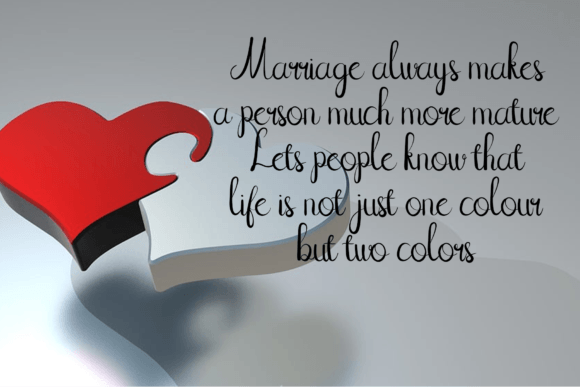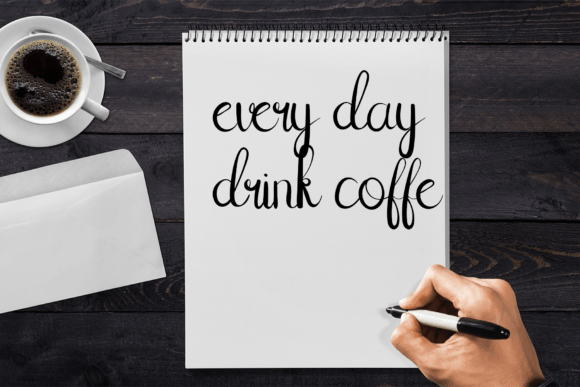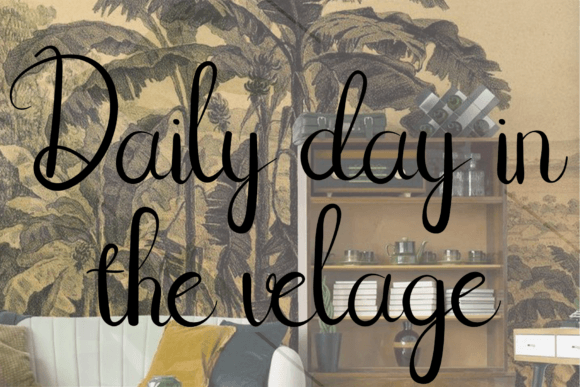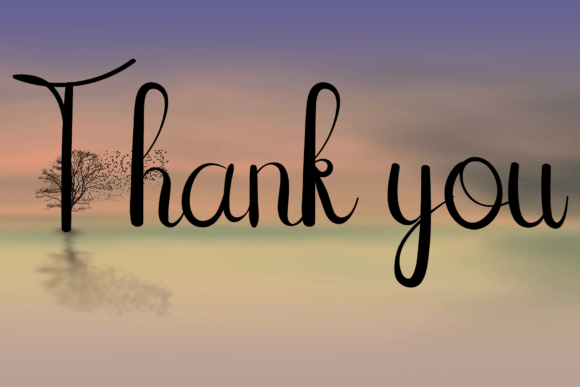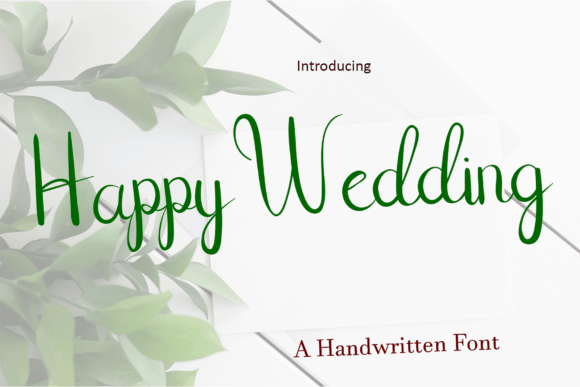
Introducing Happy Wedding: The Elegant and Flowing Handwritten Font
Are you looking for a font that exudes elegance, sophistication, and romance? Look no further than Happy Wedding, a beautiful handwritten font that is perfect for a variety of design projects. In this article, we’ll take a closer look at the features of Happy Wedding and explore how it can elevate your designs to the next level.
A Classy Calligraphic Influence
Happy Wedding is an elegant and flowing handwritten font that features varied baselines, smooth lines, and a classy calligraphic influence. The font’s design is inspired by traditional calligraphy, but with a modern twist that makes it feel fresh and contemporary. The result is a font that is both timeless and trendy, perfect for designers and crafters who want to create beautiful and sophisticated designs.
Key Features of Happy Wedding
- Elegant and flowing design: Happy Wedding features a beautiful, flowing design that is perfect for creating elegant and sophisticated text.
- Varied baselines: The font’s varied baselines add a touch of whimsy and personality to the text, making it perfect for designs that require a bit of flair.
- Smooth lines: The font’s smooth lines create a seamless and fluid look that is perfect for designs that require a high level of elegance.
- Classy calligraphic influence: Happy Wedding’s calligraphic influence gives it a timeless and sophisticated feel that is perfect for designs that require a touch of luxury.
- Contemporary and fresh: Despite its classic inspiration, Happy Wedding feels modern and fresh, making it perfect for designers and crafters who want to create designs that are both timeless and trendy.
Happy Wedding is a versatile font that is perfect for a variety of design projects, including:
- Wedding designs: As the name suggests, Happy Wedding is perfect for wedding designs, including invitations, save-the-dates, and other wedding stationery.
- Branding and packaging: The font’s elegant and sophisticated design makes it perfect for branding and packaging projects that require a touch of luxury.
- Signage and display text: Happy Wedding’s smooth lines and varied baselines make it perfect for signage and display text that requires a high level of elegance.
- Digital designs: The font’s modern and fresh feel makes it perfect for digital designs, including social media graphics, blog posts, and other online content.
Why Choose Happy Wedding?
There are many fonts to choose from, but Happy Wedding stands out for several reasons:
- Unique and distinctive design: Happy Wedding’s elegant and flowing design sets it apart from other fonts, making it perfect for designers and crafters who want to create unique and eye-catching designs.
- High-quality design: The font’s smooth lines and varied baselines create a high-quality look that is perfect for designs that require a high level of elegance.
In conclusion, Happy Wedding is a beautiful and elegant handwritten font that is perfect for designers and crafters who want to create sophisticated and romantic designs. With its varied baselines, smooth lines, and classy calligraphic influence, Happy Wedding is sure to elevate your designs to the next level. Whether you’re working on a wedding design, branding project, or digital design, Happy Wedding is a great choice. So why wait? Fall in love with Happy Wedding and take your projects to the highest level!